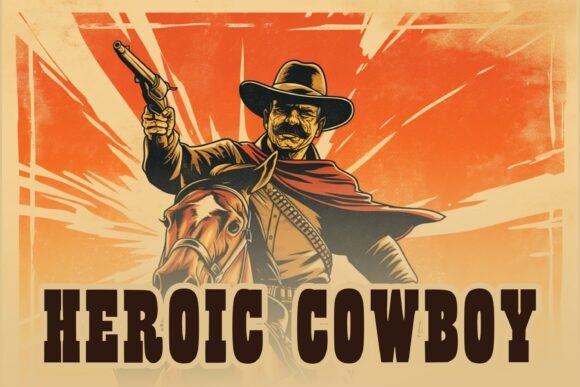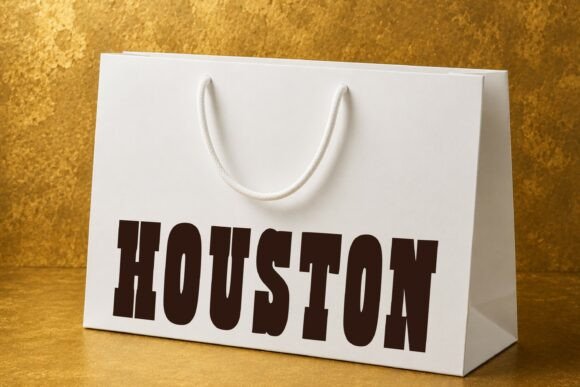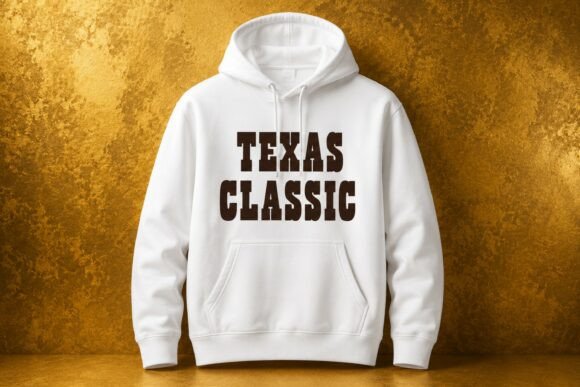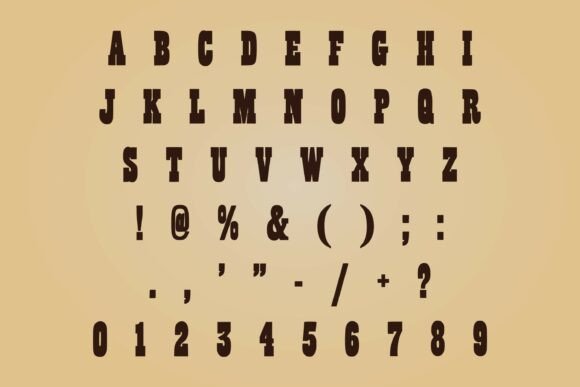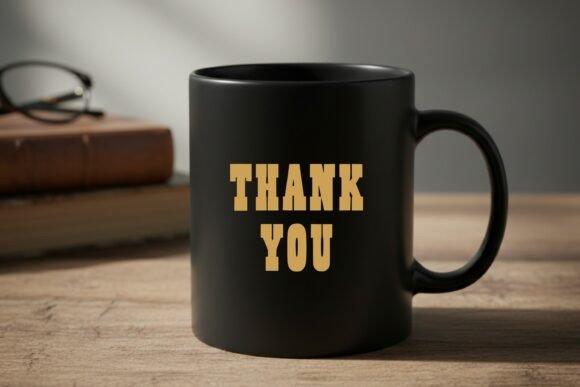
Introduction to Country Western Font
Country Western is a powerful vintage display font inspired by classic western posters, old saloon signage, and retro typography styles.
Designed with bold strokes and thick outlines, this font delivers a strong visual impact while maintaining a warm, nostalgic feel Its rugged yet clean structure makes it ideal for branding, logos, apparel designs, posters, packaging, and more.
Key Features of Country Western Font